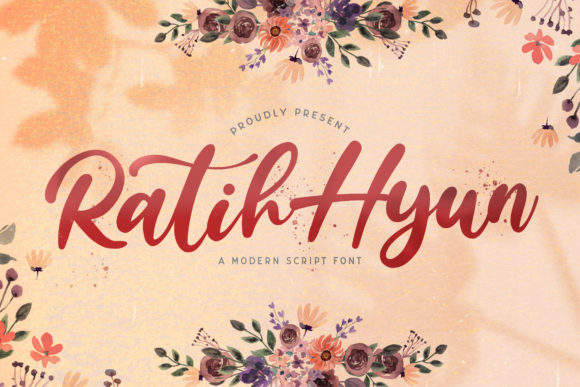
Prepare yourself to be captivated by Ratih Hyun, a script font of extraordinary beauty, meticulously crafted to become your go-to choice for any project seeking an air of sophistication and elegance. Its delicate strokes, reminiscent of the finest calligraphy, intertwine seamlessly, creating an aura of timeless charm. Yet, within its classicism lies a touch of modernity, an undertone of freshness that keeps it relevant and relatable in today's ever-evolving design landscape. Embrace Ratih Hyun and witness your creative endeavors soar to unprecedented heights.
With Ratih Hyun by your side, you'll find yourself immersed in a world of endless possibilities. Its versatility knows no bounds, as it effortlessly lends itself to a multitude of projects, from heartfelt letters and captivating invitations to captivating posters and enthralling social media graphics. Whether you're seeking to add a touch of personal flair to your correspondence or yearning to make a lasting impression with your marketing materials, Ratih Hyun stands ready to be your trusted companion, guiding you towards design excellence.
Unleash your imagination and allow Ratih Hyun to transform your words into works of art. Its graceful curves and elegant flourishes will infuse your designs with a captivating charm, leaving a lasting impression on all who encounter them. Experience the joy of creating designs that resonate with your audience, designs that evoke emotions and leave an indelible mark on their hearts and minds. With Ratih Hyun as your creative ally, you'll discover a new level of design prowess, a level where every project becomes a masterpiece.
Don't settle for ordinary fonts that blend into the background. Embrace the allure of Ratih Hyun, a font that commands attention, a font that whispers of luxury and sophistication. Elevate your designs to new heights, leaving your audience captivated and inspired. Let Ratih Hyun be your secret weapon, your key to unlocking the door to design brilliance. Seize this opportunity to redefine your creative potential and embark on a journey of artistic exploration with Ratih Hyun as your trusted guide.